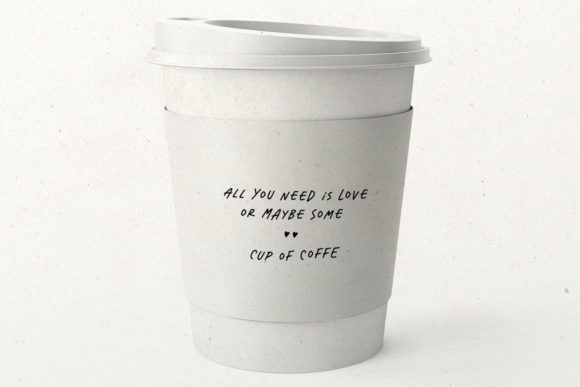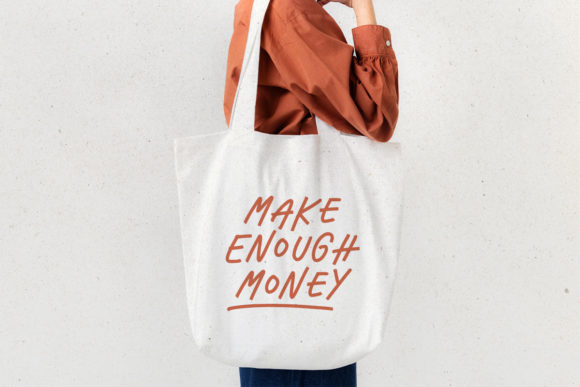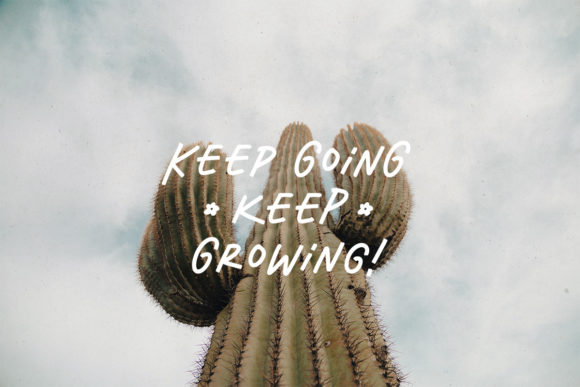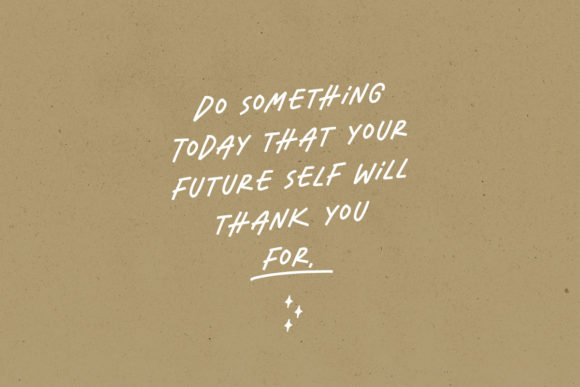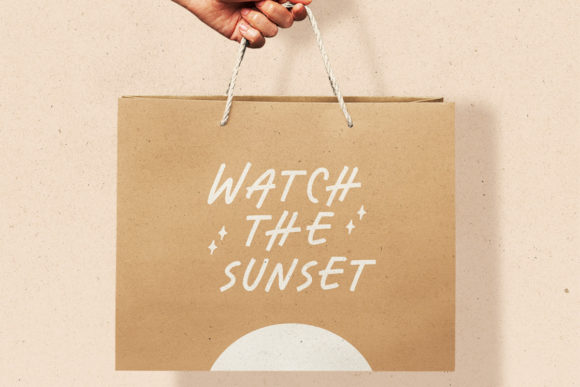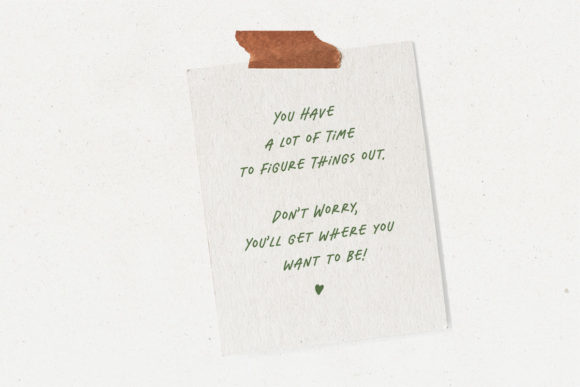
Introduction to Lucky String Font
Have you ever been working on a creative project, pouring your heart and soul into it, only to realize that it’s missing that special something? The spark that sets it apart from the rest? For designers, finding that perfect touch can be a game-changer. That’s where the Lucky String Font comes in – a high-quality, versatile font that’s sure to elevate your design to the next level.
This beautiful handwritten font is perfect for adding a personal touch to your projects, whether it’s a social media graphic, a logo, or even a wedding invitation. With its unique lowercase letters and special symbols like love and star, the Lucky String Font is a valuable resource for any designer looking to add some whimsy and personality to their work.
- Unique, hand-drawn style with a playful and whimsical feel.
Honest Review: Lucky String Font
I recently stumbled upon the Lucky String Font and I have to say, it’s been a game-changer for my creative project. The font is perfect for adding a touch of whimsy and personality to my designs.
- What works well: ✨ The font is incredibly versatile and can be used for a variety of design projects, from logos to social media graphics.
- ✨ The high quality of the font is evident, with smooth lines and clear typography.
- ✨ The transparent background option is a huge plus, making it easy to integrate the font into any design.
Overall, I’m thoroughly impressed with the Lucky String Font. It’s a valuable addition to any designer’s toolkit and a must-have for any creative project.
The Lucky String Font is a high-quality, versatile font that can be used in a variety of creative projects. With its transparent background, it’s perfect for adding a touch of elegance to your designs.
What is the recommended usage for the Lucky String Font?
The Lucky String Font is designed for general use and can be applied to various creative projects, such as logos, typography, and text-based designs. However, it is not optimized for large-scale or high-impact displays, and designers are advised to use it in moderation to maintain optimal quality and readability.